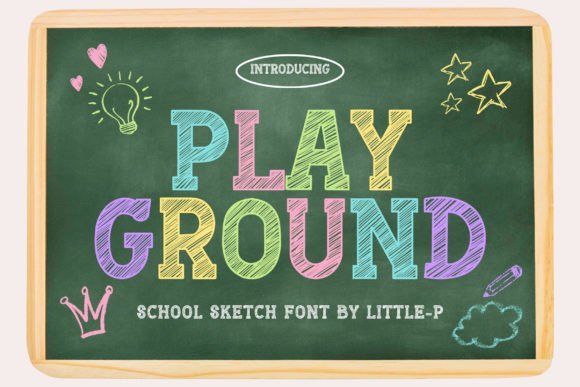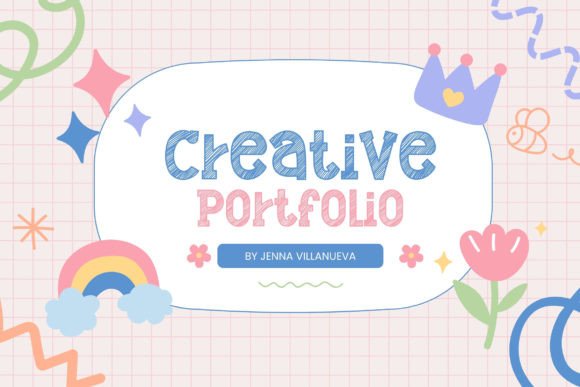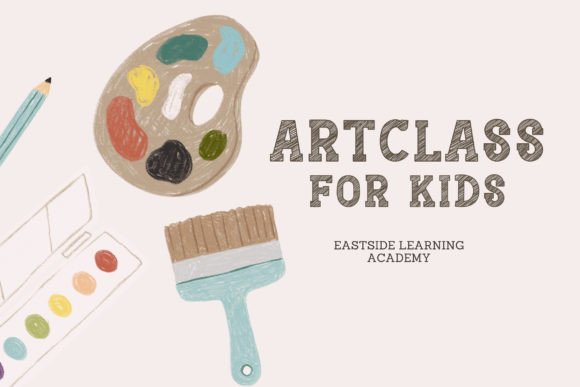
Playground Font: A Playful Display Font for Kids & DIY Craft Projects!
About the Playground Font
Experience the unique personality of Playground Font, a font designed for impact. Introducing Playground the perfect font for kids that embodies fun and creativity with its playful display and sketch handwritten style. With a back-to-school theme, this font captures the joy and excitement of childhood. Suitable for children of all ages, Playground is ideal for instructional media, custom DIY craft projects, personalized names, sublimations, posters, and various other creative endeavors.
Playground Font’s playful, hand-drawn style excels in headlines, posters, and packaging for children’s products or brands focused on fun and creativity. It also works well for short, impactful text on social media graphics or invitations. However, its informal nature makes it unsuitable for body text, long paragraphs, or applications requiring high readability, such as website UI or instruction manuals.
Pairing Playground with a clean sans-serif like Open Sans for body copy creates a balanced contrast, maintaining readability while retaining the font’s playful energy. For a more sophisticated feel, consider pairing it with a classic serif such as Garamond for supporting text. Alternatively, a geometric sans-serif font would add a modern, structured counterpoint to Playground’s organic feel.
The overall personality of Playground is undeniably cheerful and informal, making it a strong choice for projects targeting a young audience or those needing a lighthearted, friendly brand identity.
Playground Font Usage Examples
Playground Font Example